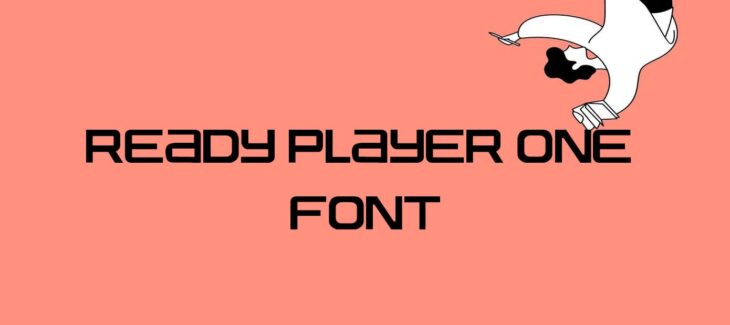
Ready Player One Font is a popular science fiction novel written by Ernest Cline. The story takes place in a future world where people escape the harsh realities of life by spending their time in a virtual world called the OASIS. Ready Player One is set in 2045, and the OASIS has become the most popular online game in history.
This font is an important part of the book’s visual style. The text is set in a typeface called Beowulf, which was designed by David Jonathan Ross. Beowulf is a modern take on the Blackletter typeface, and it was chosen for its vintage look and feel.
Who Used Ready Player One Font?
This font can be used in different fields. Ready Player One book, movie, or game. It will give the same feeling to all of them. In terms of Ready Player One book, the font is used to show the difference between the real world and the virtual world.
In this typeface One movie, we can see more stylish font usage when Wade is in the real world. And in this typeface game, we can see the font more clearly when a player wants to enter the virtual world. This font style is also be generated through an online font generator tool.
Although it’s not a requirement, It can help you create designs that are inspired by the book, movie, or game. It is also useful for making posters, flyers, and other marketing materials for related events.
Ready Player One Font Family Appearance
| Name | Ready Player One Font |
| Designer | Ernest Cline |
| Style | Serif |
Alternatives of Ready Player One Font
What font looks good with Ready Player One?
This font is a Blackletter typeface, it looks good with other vintage fonts. Try pairing it with fonts like Cooper Hewitt or Merriweather Font for a professional look.